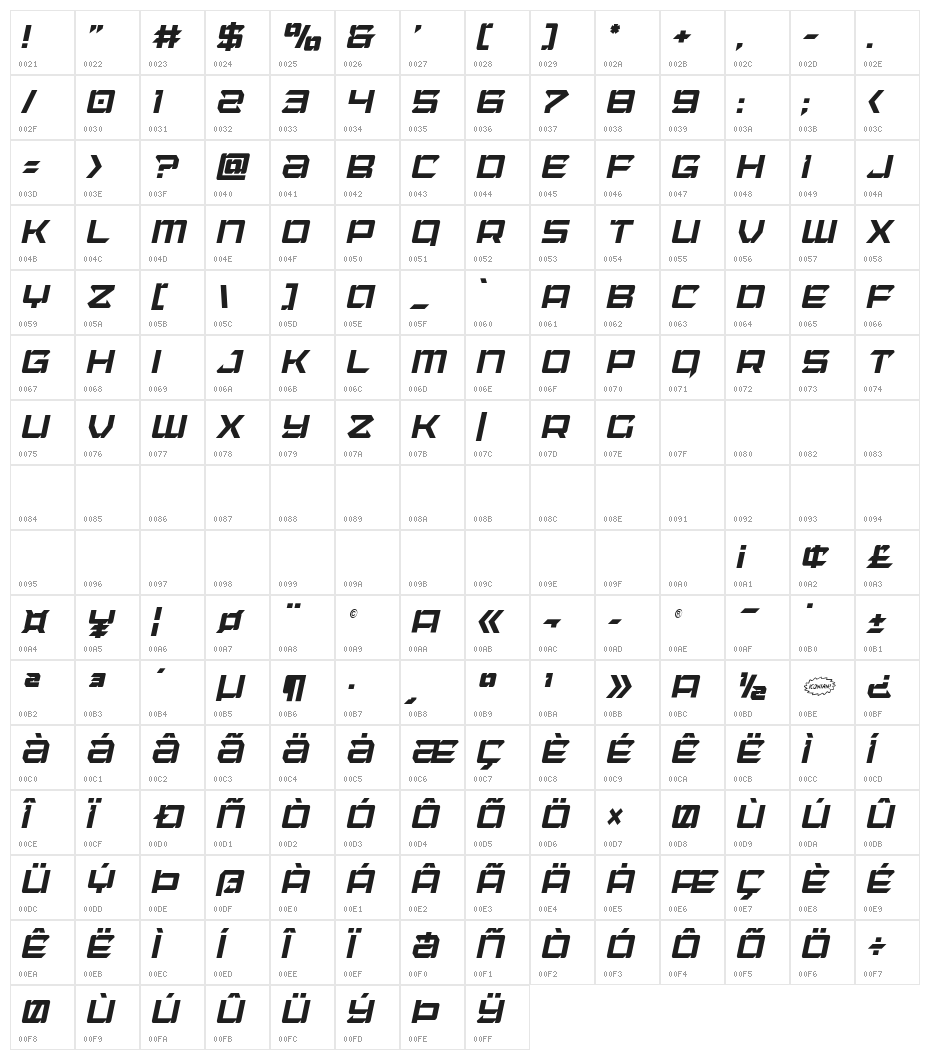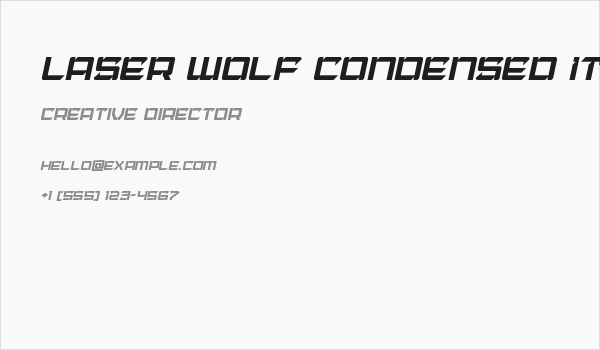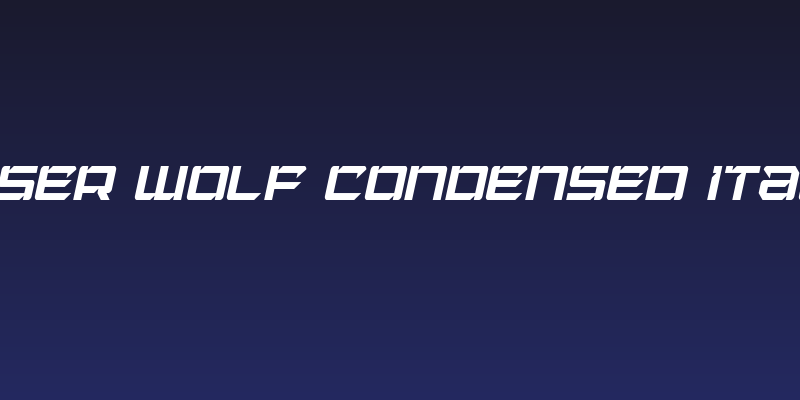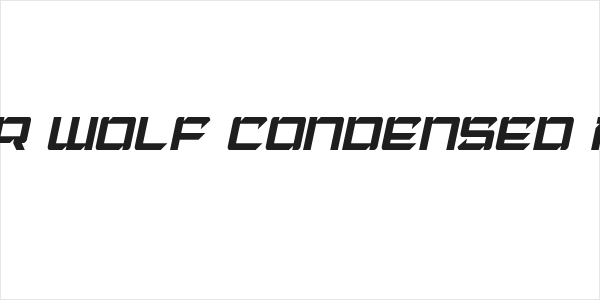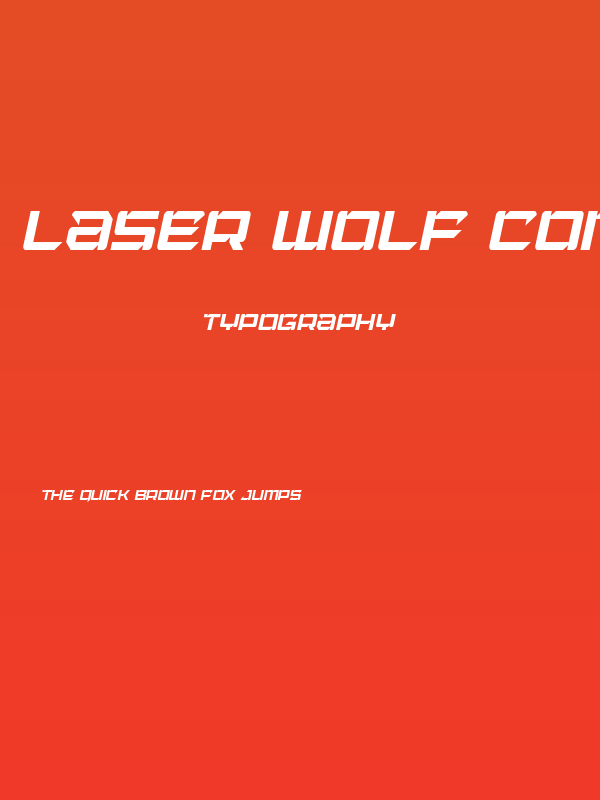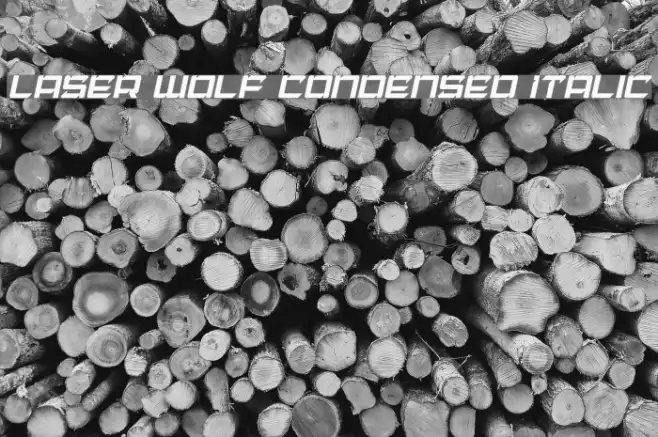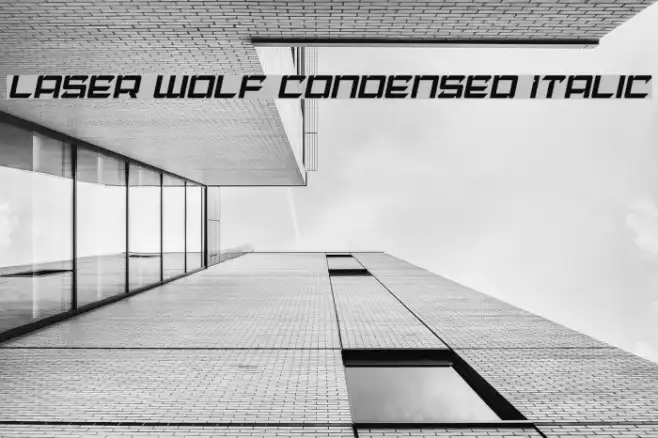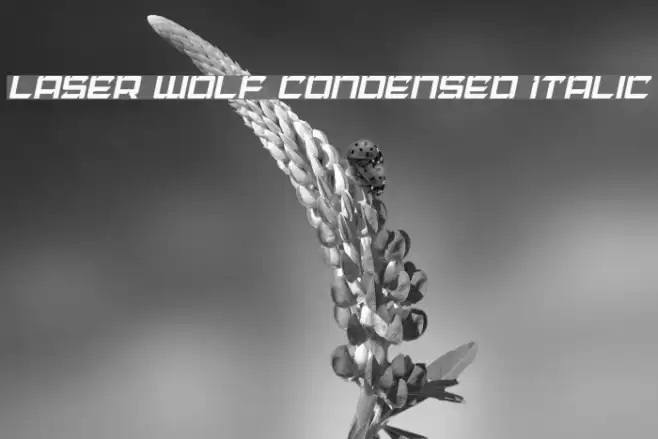
Laser Wolf Condensed Italic Font
Laser Wolf Condensed Italic Description
This font features a futuristic and dynamic design, characterized by its sharp angles and condensed form. The italic style adds a sense of motion and speed, making it ideal for projects that require a modern and edgy look. The uppercase and lowercase letters maintain a consistent style, with a uniform stroke width that enhances readability. The numerals and special characters are designed to match the overall aesthetic, ensuring a cohesive appearance across all text elements. This font is suitable for use in digital and print media, where a bold statement is desired.
| Proposed Projects | Ideal for technology branding, video game titles, sci-fi posters, and modern advertising. |